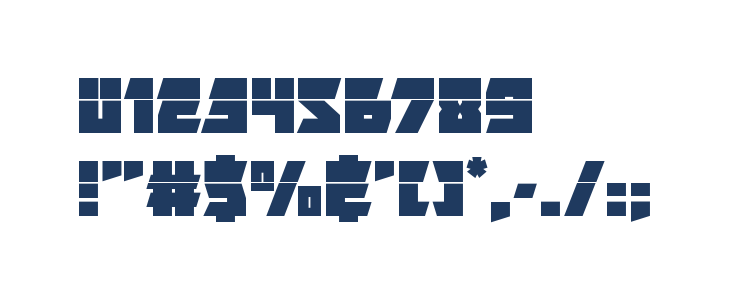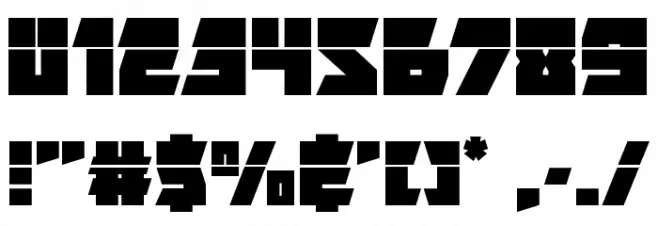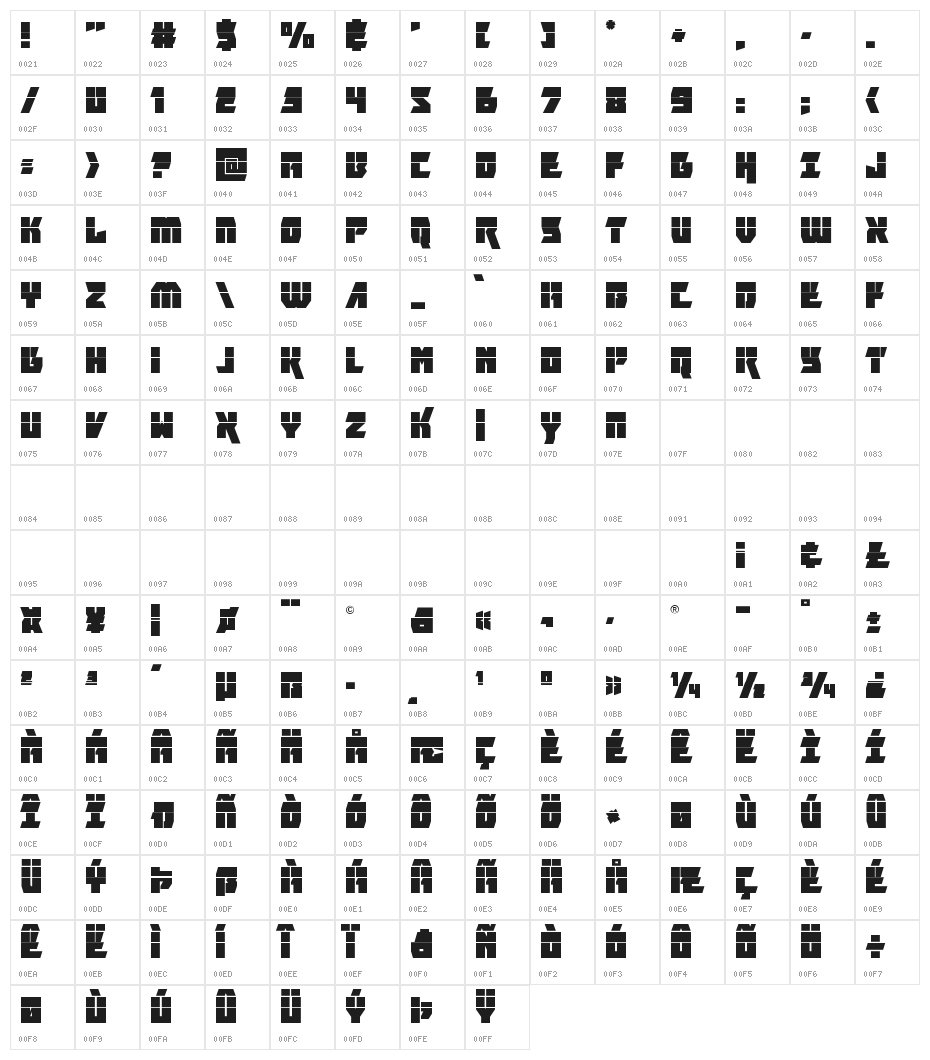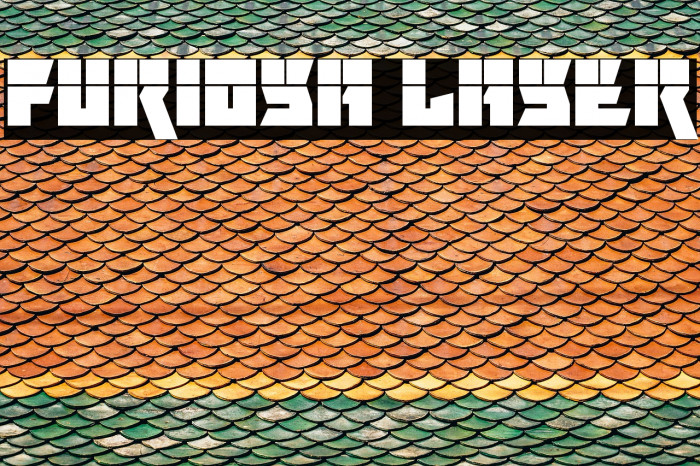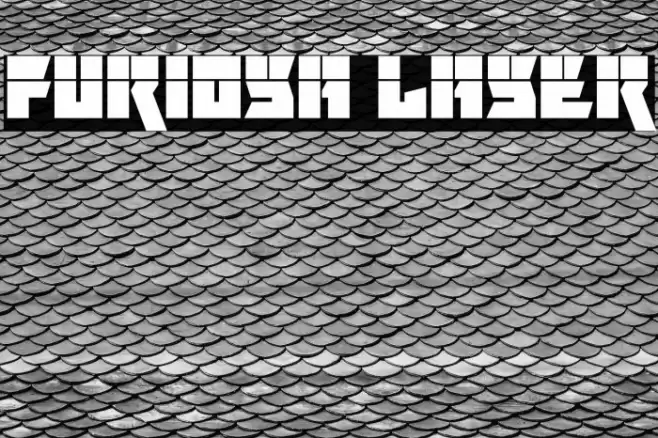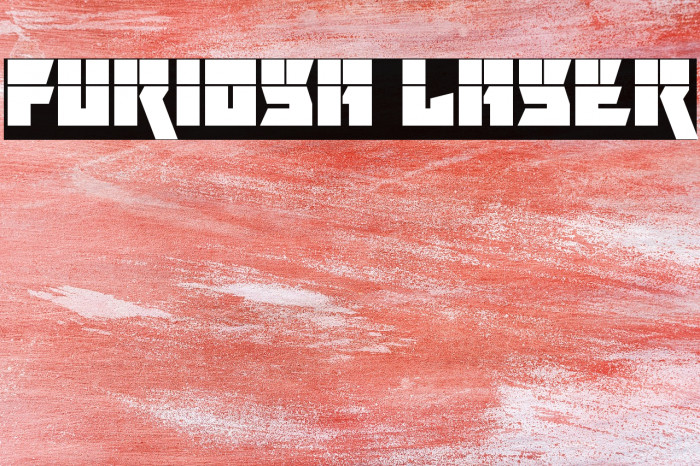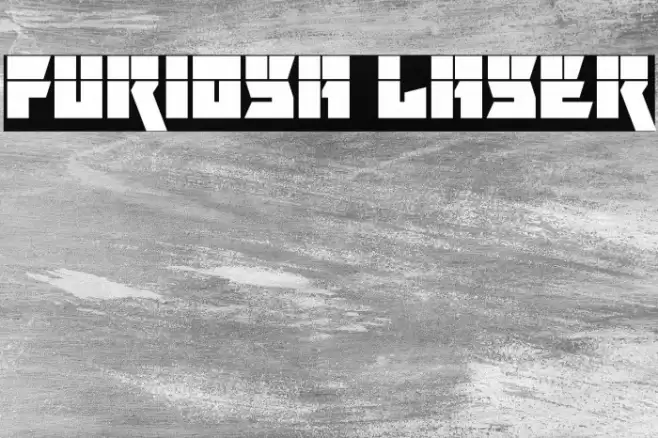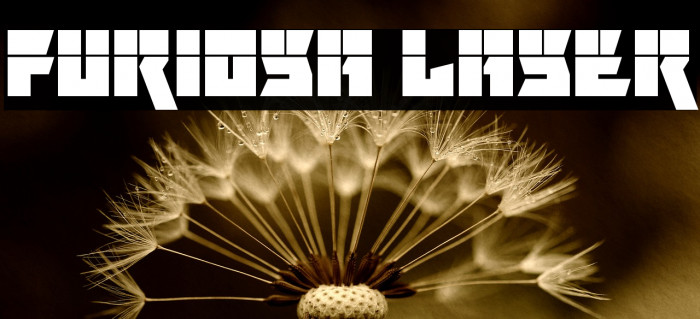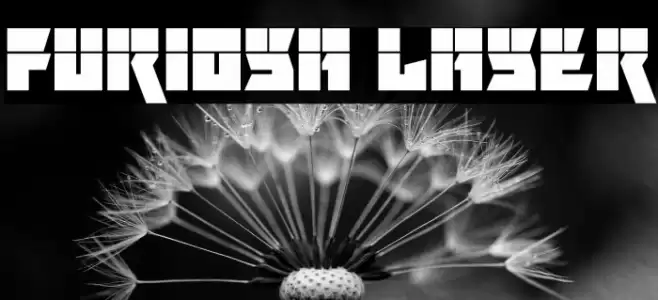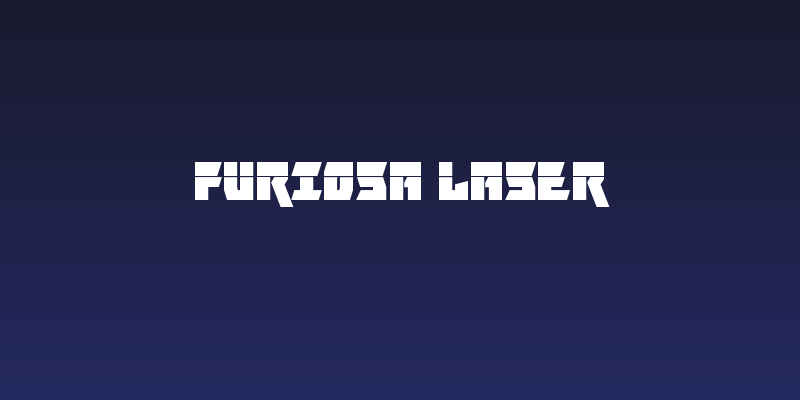
Furiosa Laser Font
Furiosa Laser Description
This font features a bold, geometric design with sharp angles and a futuristic aesthetic. The characters are constructed with a blocky, angular style that gives a sense of strength and modernity. The uppercase and lowercase letters share a consistent design, emphasizing uniformity. Numbers and special characters maintain the same bold and angular characteristics, ensuring a cohesive look across all glyphs. The font's design is striking and attention-grabbing, making it ideal for projects that require a strong visual impact.
Overall StyleFuturistic
Proposed ProjectsIdeal for sci-fi themed projects, video game titles, posters, and branding that requires a modern and bold statement.